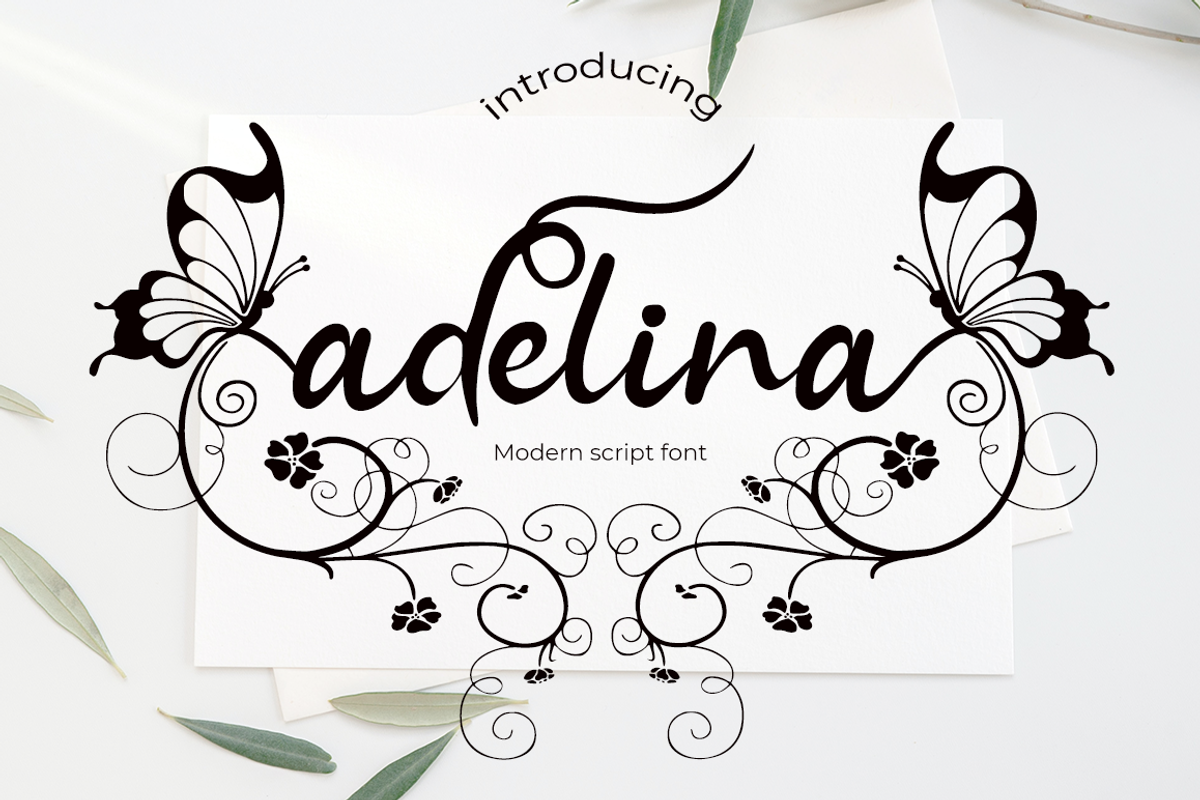
Adelina Font Free Download is a romantic and elegant script typeface with a graceful, handwritten feel. With its flowing curves, stylish swashes, and timeless beauty, Adelina is perfect for wedding invitations, signature logos, branding, greeting cards, and feminine product packaging.
This font captures the essence of calligraphy with a modern twist—ideal for designs that need a personal and sophisticated touch. Whether you're designing for a boutique brand or crafting social media graphics, Adelina adds charm and class to every project.